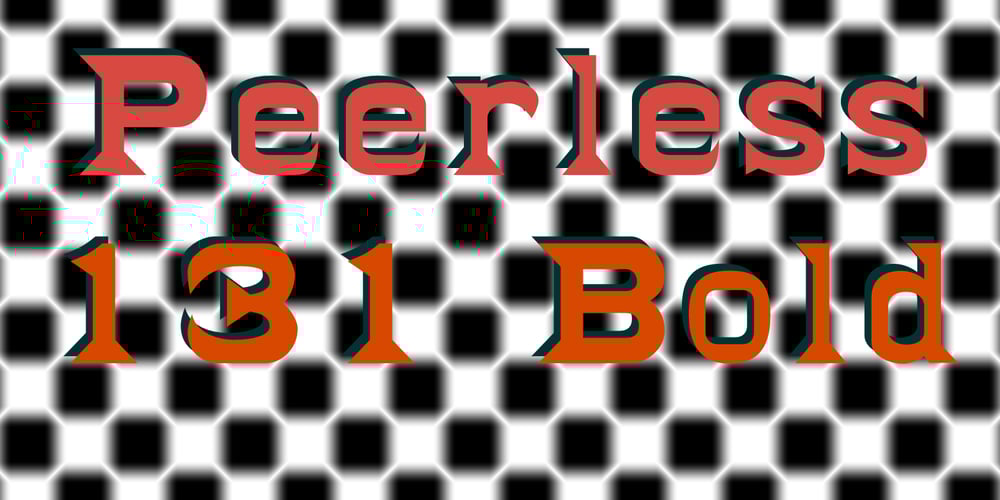
Peerless 131 Bold Font Family was designed by William Hamilton Page, Jordan Davies and published by Wooden Type Fonts. Peerless 131 Bold contains 1 styles and family package options. A revival of one of the popular wooden type fonts of the 19th century, suitable for display, or text, closely related to Latin.